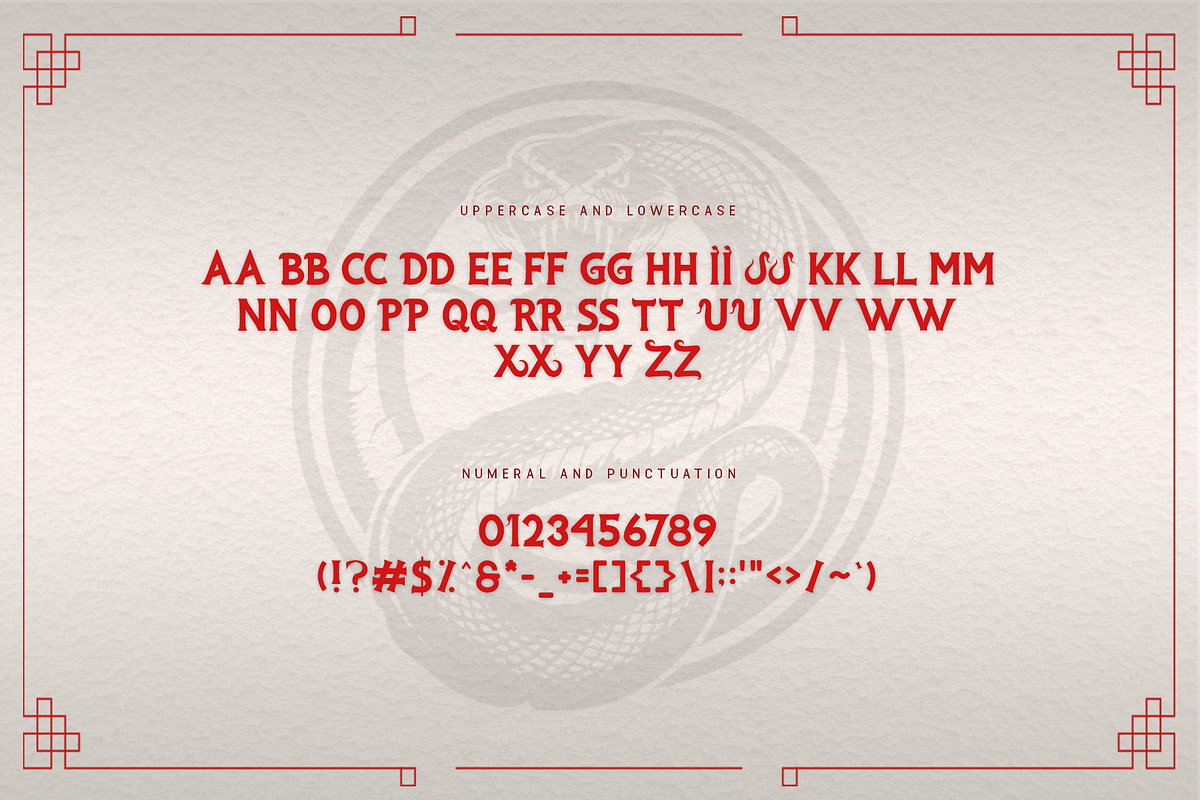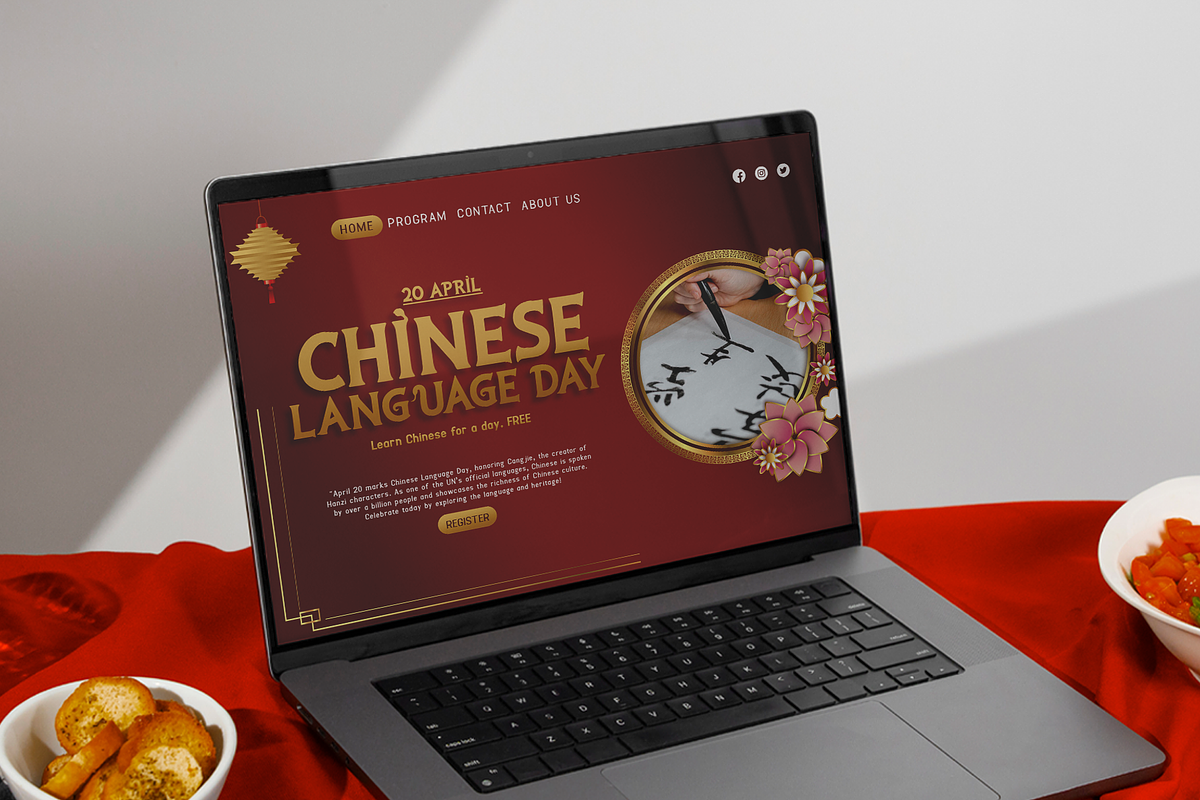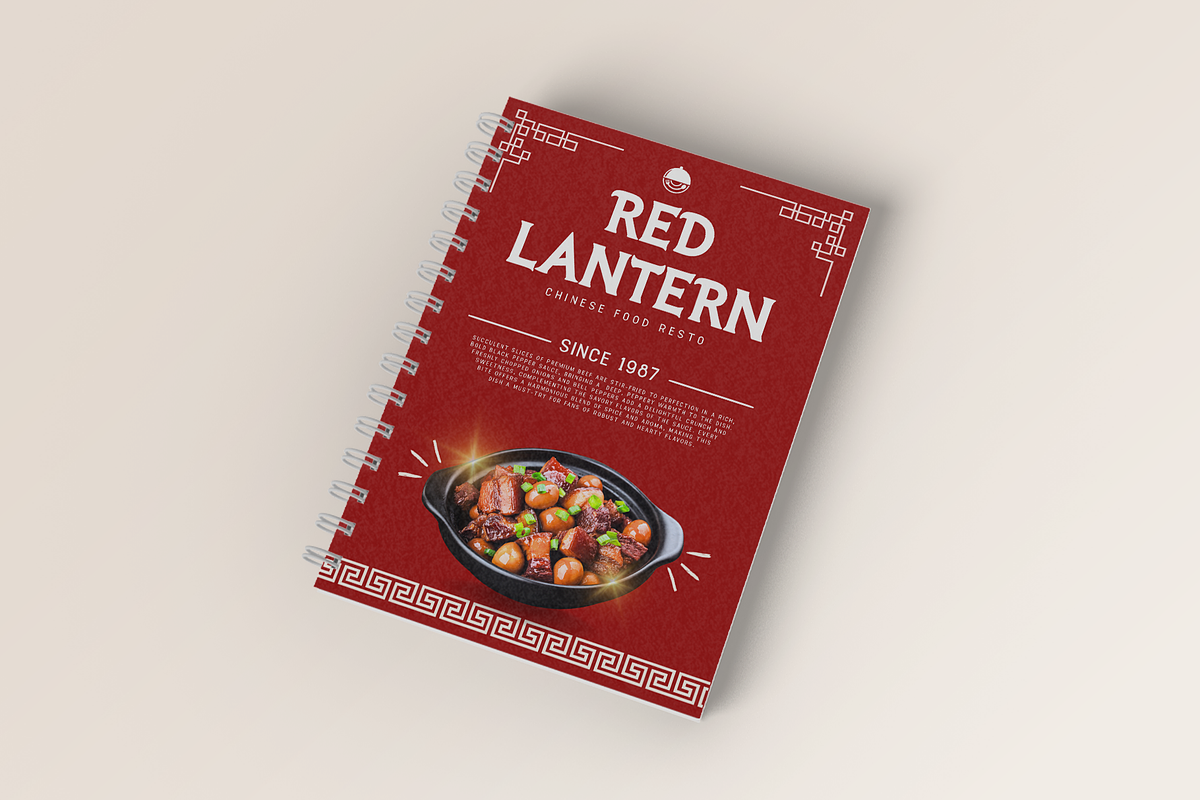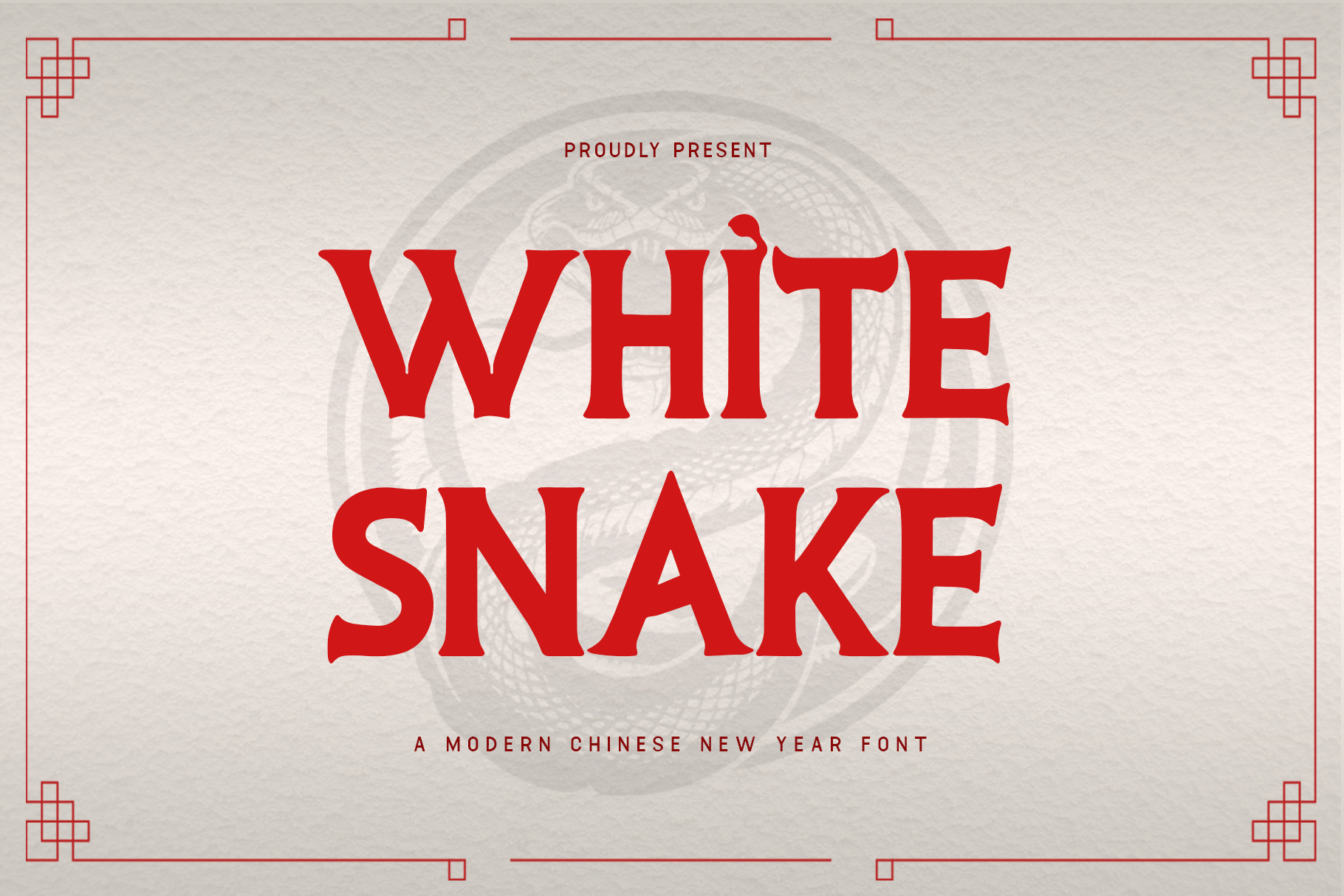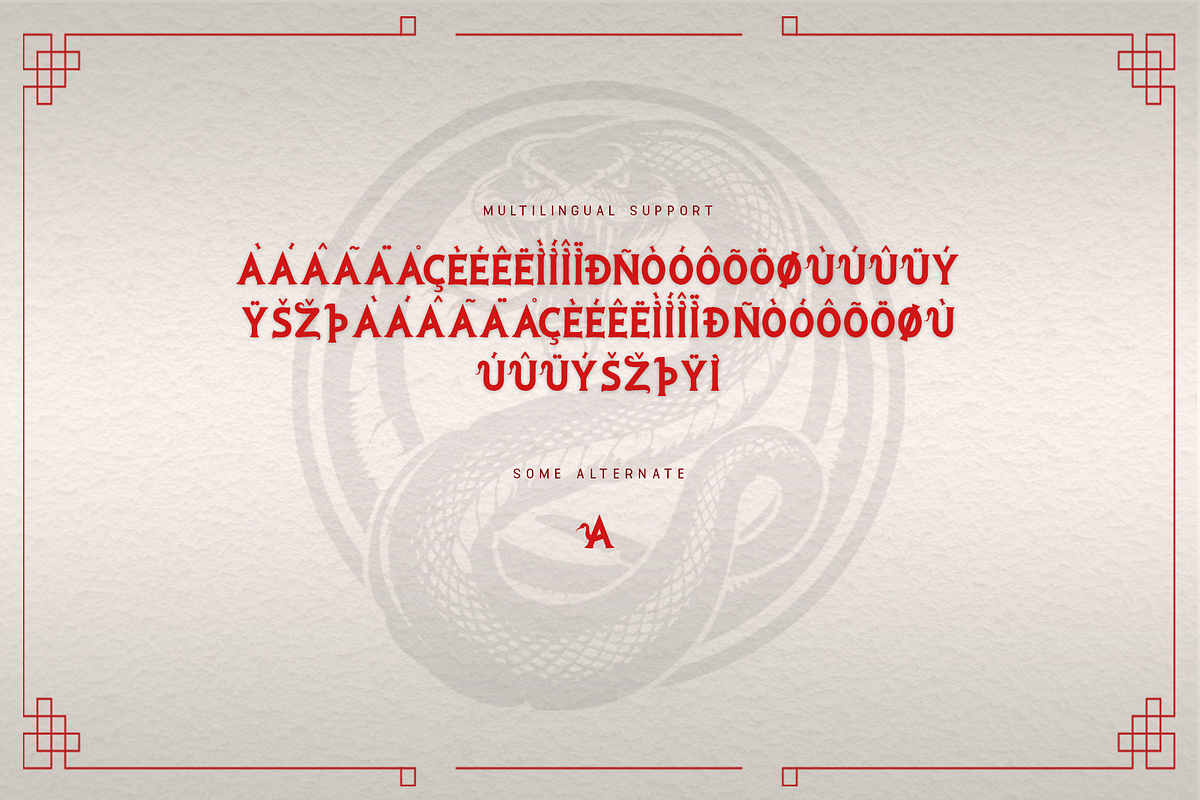
White Snake - A Modern Chinese Font
White Snake - A Modern Chinese New Year Font
Introducing White Snake, a modern font inspired by the grace and mystique of the white snake in Chinese folklore. This typeface combines sleek, serpentine curves with contemporary design elements, making it a perfect fit for Chinese New Year and cultural celebration designs.
The fluid shapes and bold elegance of White Snake evoke wisdom, renewal, and prosperity, making it ideal for event posters, invitations, branding, and promotional materials. Its unique aesthetic ensures your projects exude sophistication and cultural depth.
With multilingual support and a complete character set, White Snake offers versatility for various design applications.It’s the perfect font for adding a touch of modern elegance to your Lunar New Year creations.